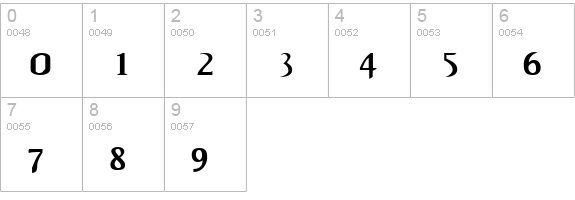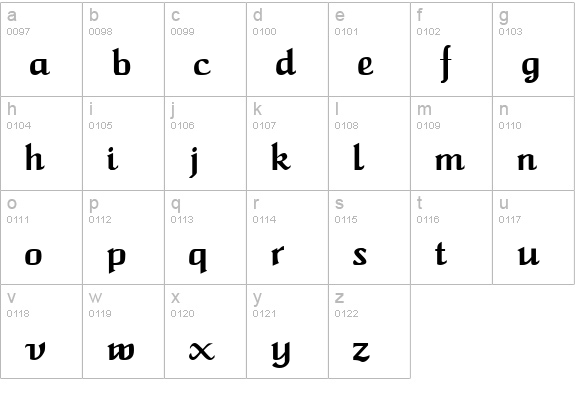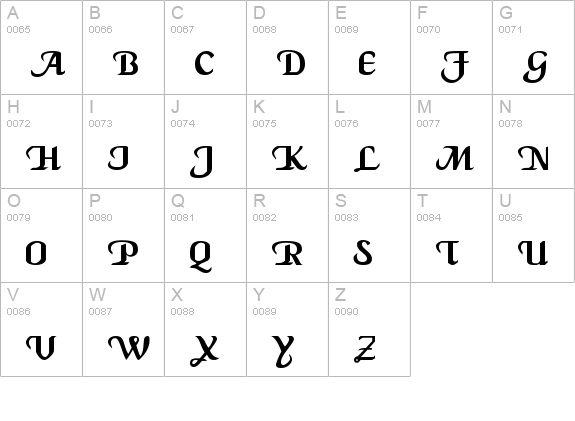
QTCaligulatype Regular Font Details
QTCaligulatype Regular is the standard, neutral variant in the QTCaligulatype typeface family \xE2\x80\x94 well suited to general body text, paragraphs, and standard typographic work.
QTCaligulatype Regular is a beautifully designed font that brings a touch of elegance and sophistication to any project. With its clean lines and classical letterforms, this font is perfect for creating eye-catching headlines, logos, and branding materials. The QTCaligulatype Regular font is characterized by its balanced proportions and strong, confident strokes, making it a versatile choice for both digital and print designs. Its timeless appeal and legibility make it suitable for a wide range of applications, from editorial layouts to web design. What sets QTCaligulatype Regular apart is that it is available for free download at FontsMarket.com. This means that you can easily access and use this font without any limitations or restrictions. Whether you're a professional designer or a hobbyist, having access to a high-quality font like QTCaligulatype Regular can greatly enhance your creative projects. So, why wait? Experience the beauty and versatility of QTCaligulatype Regular today. Download it for free at FontsMarket.com and unlock a world of possibilities for your designs.